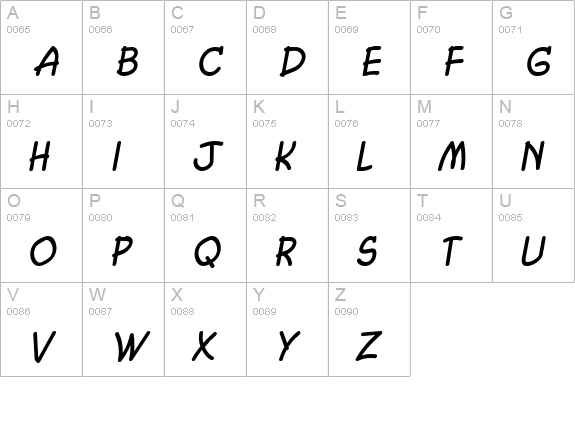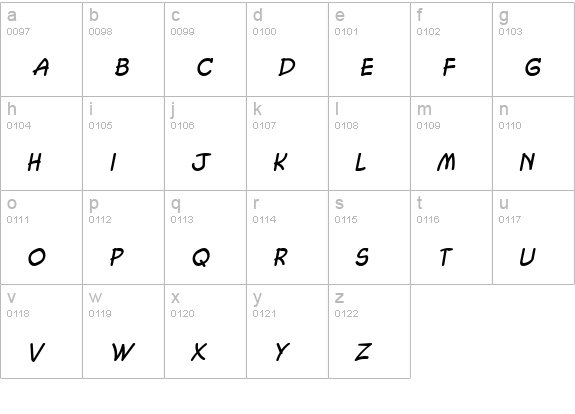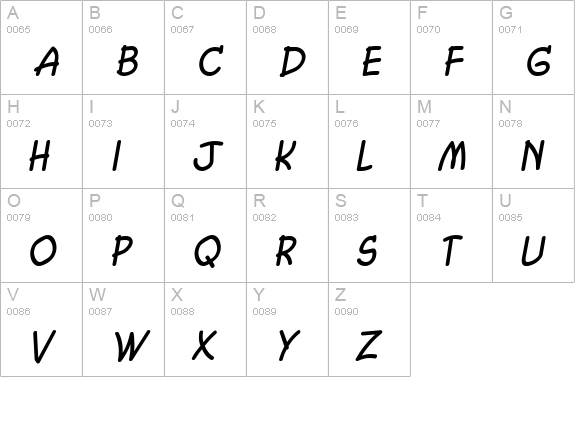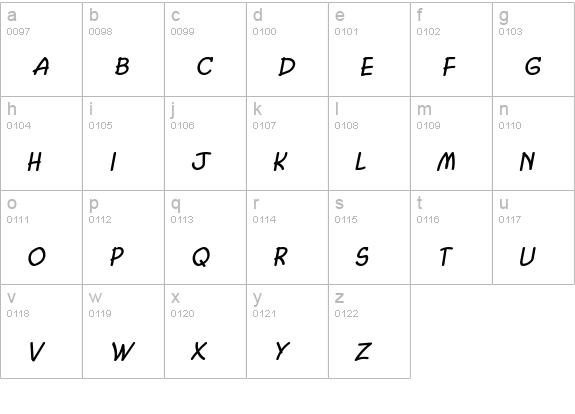
Chasm Italic Font Details
Chasm Italic is a distinctive, italic variant in the Chasm typeface family \xE2\x80\x94 well suited to design and typography projects.
Chasm Italic font is a striking and elegant typeface that exudes sophistication and modernity. With its sleek and fluid design, this font is perfect for adding a touch of class to any project. The italic style adds a sense of flair and elegance, making it ideal for use in branding, advertising, and editorial design. What sets Chasm Italic font apart is not only its beautiful design but also the fact that it is available for free download at FontsMarket.com. This means that you can easily access this high-quality font without any cost, making it a valuable addition to your font collection. Whether you are working on a logo, website, or any other design project, Chasm Italic font will elevate your work and give it a sophisticated and professional look. Download it for free today and see the difference it can make in your designs.